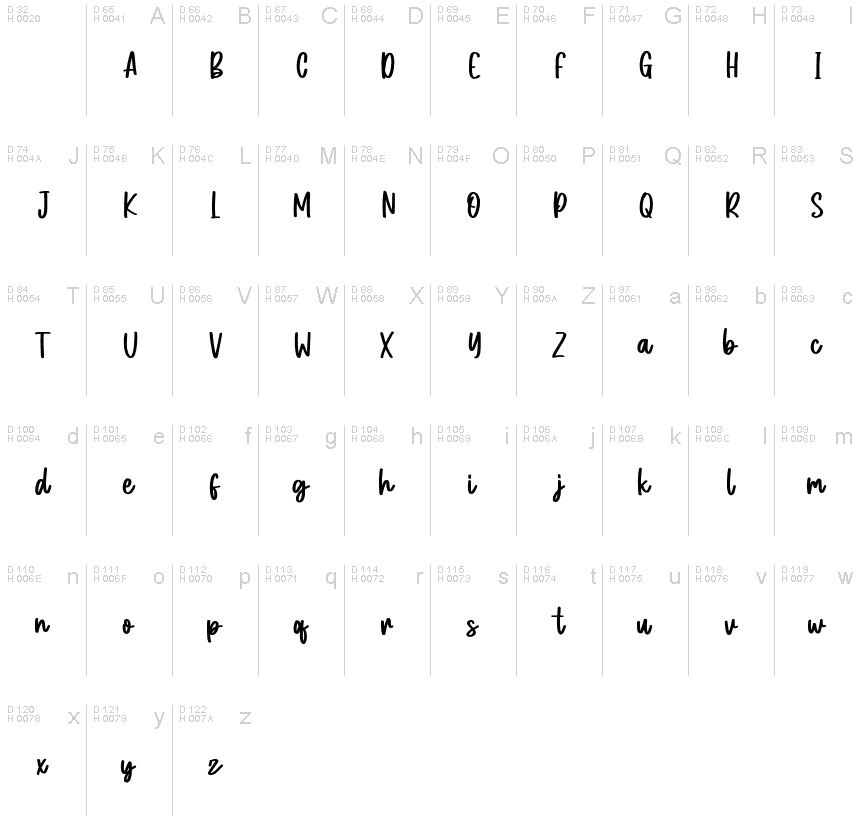
Joylady Free Regular
Joylady, the charming semi-light handwritten font from Maulana Creative, is the perfect choice for projects that require a touch of whimsy and elegance. Its semi-condensed width makes it an excellent option for designs with limited space, such as greeting cards, invitations, and social media posts. However, don't let its delicate appearance fool you; Joylady's readability ensures that it's also suitable for longer texts like book covers and editorial designs. With its intricate curves and playful demeanor, Joylady is sure to add a delightful flair to any project.